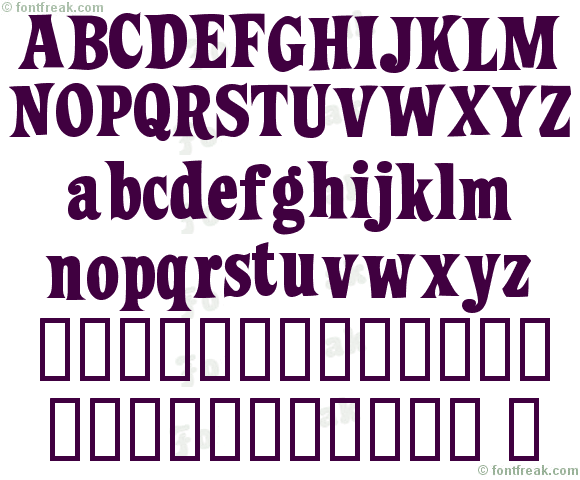
ZiggyStandard
About ZiggyStandard
ZiggyStandard by Mickey Rossi is a striking display font that combines boldness with a playful spirit, making it ideal for a variety of creative projects. As a display typeface, it features a distinctive style characterized by its thick, pronounced strokes and a slightly condensed structure, which gives it a unique visual appeal. The font exhibits a moderate contrast in stroke weight, adding a sense of dynamism while maintaining readability. The letterforms are well-spaced, ensuring clarity even at larger sizes, and the overall design incorporates subtle decorative elements that enhance its character without overwhelming the viewer.
This font is particularly well-suited for applications such as eye-catching movie posters, dynamic branding for trendy cafes, and vibrant restaurant menus. Its playful yet bold nature makes it an excellent choice for graphic designers looking to bring a sense of fun to their projects. Additionally, small business owners can leverage ZiggyStandard to create unique promotional materials that stand out in a crowded market. Content creators aiming for a distinctive aesthetic in their online presence will also find this font to be an asset, as it adds a touch of personality to social media graphics and blog headers.